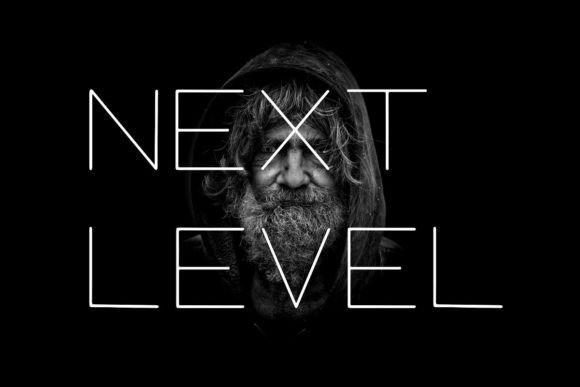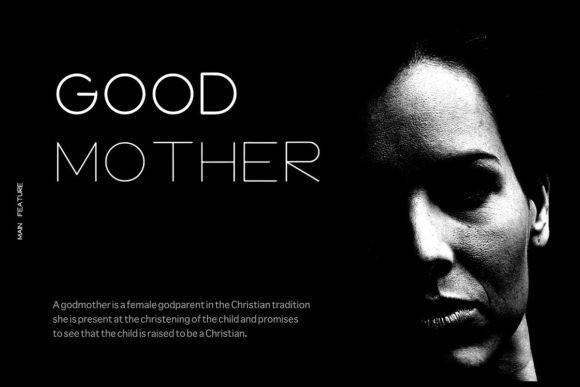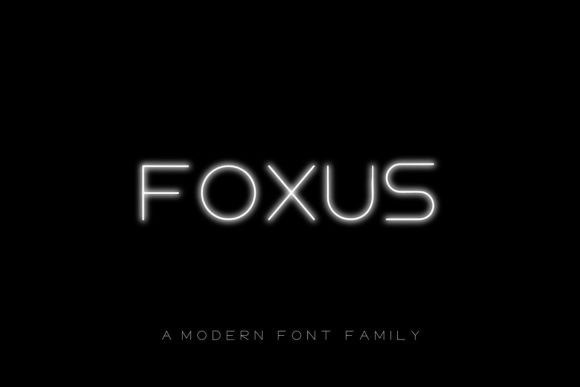
Foxus Font
Foxus Sans Serif Font is a sans-serif font featuring modern and minimalist nuance. The combination of symmetrical and geometric construction of upright uppercase and lowercase letters gives it a soft modern feel. It is suitable for future projects, movie posters, modern websites, flyers, and logo designs.